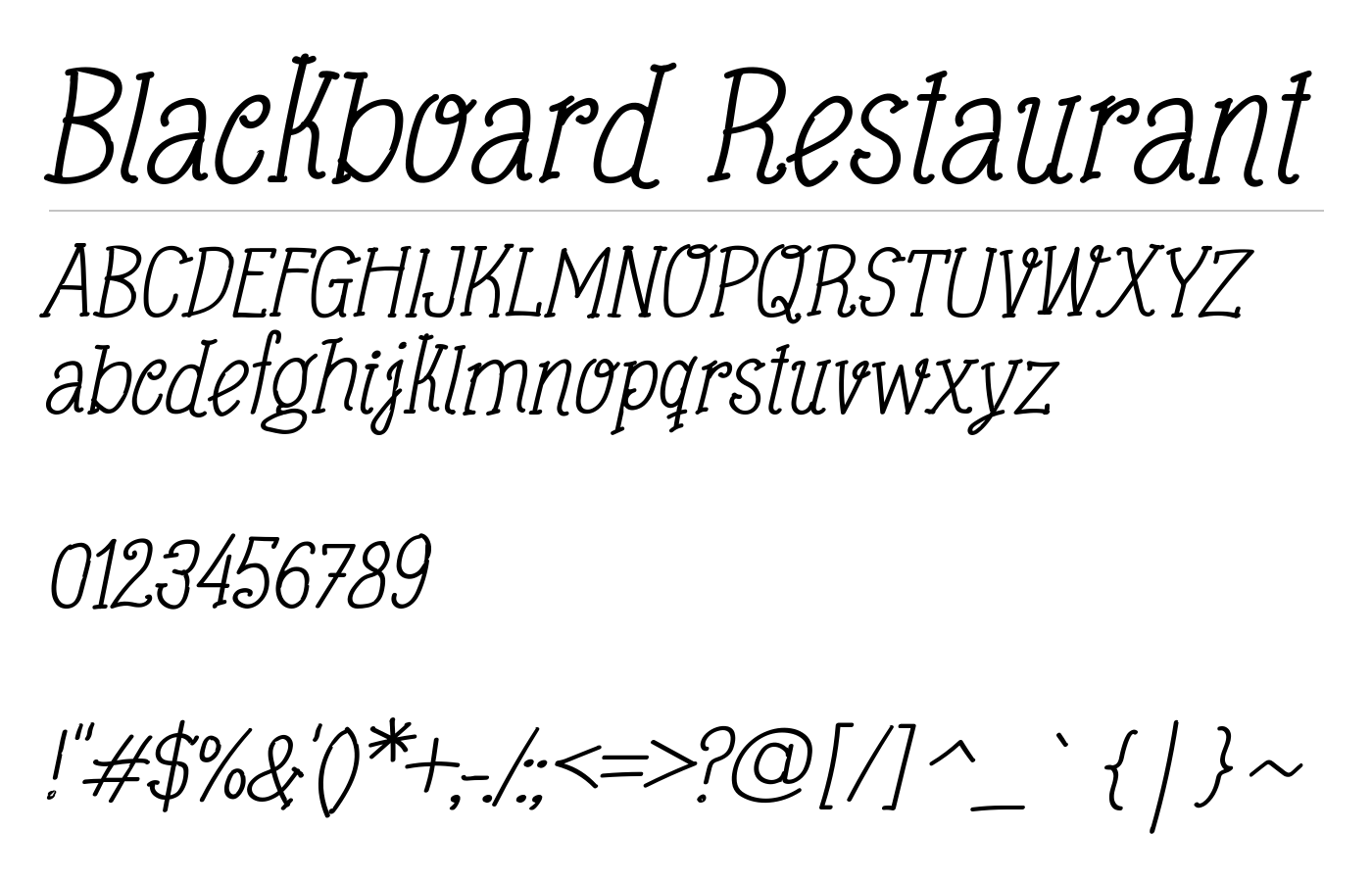
Blackboard Restaurant is an elegant serif font with a hand-drawn, slightly playful style, perfect for creating a warm and inviting atmosphere. Its slender, slightly slanted letterforms with moderate contrast and delicate serifs give it a charming, casual yet refined feel, ideal for branding in the food and hospitality industry, menus, and creative projects looking for a friendly, artisanal touch.
Blackboard Restaurant Font
About Blackboard Restaurant Font
| Font family | Blackboard Restaurant Font |